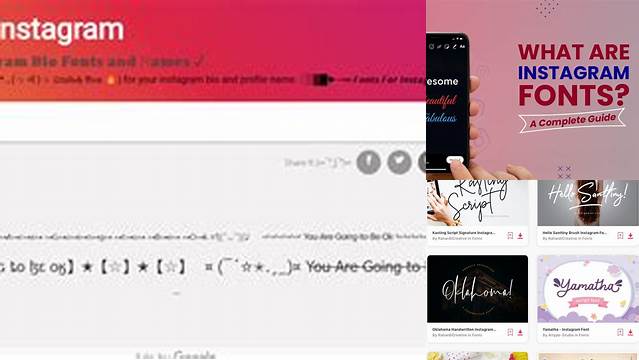
Instagram Fonts Keyboard: Cool Fonts For Your Bio & Captions
Hey guys! Ever wondered how some Instagram profiles have those super cool, unique fonts in their bios and captions? You're not alone! It's a common question, and the answer is simpler than you might think. In this guide, we'll dive deep into the world of Instagram fonts keyboard options, helping you jazz up your profile and stand out from the crowd. We'll explore everything from why using different fonts matters to how you can easily implement them using various tools and apps. Get ready to transform your Instagram game!
Why Use Different Fonts on Instagram?
In the bustling digital landscape of Instagram, capturing attention is paramount. With millions of users scrolling through their feeds daily, your content needs that extra oomph to stand out. Using different fonts for Instagram is one effective way to achieve this. Think of it as adding a personal touch to your digital voice. A unique font can reflect your brand's personality, whether it's playful, sophisticated, or edgy. It allows you to inject creativity into your posts and stories, making them more visually appealing and engaging.
Moreover, strategic use of stylish fonts can enhance readability. Imagine a long caption in a standard font – it might seem monotonous and discourage users from reading it. However, by breaking it up with different fonts, you can highlight key points, emphasize calls to action, and guide your audience's eye through the text. This is especially crucial for longer captions or stories where you want to maintain viewer interest.
Different fonts also help in establishing a consistent brand identity. If you consistently use a particular font that aligns with your brand's aesthetic, it becomes a recognizable element of your content. This consistency builds brand recognition and makes your posts easily identifiable in the crowded feed. For instance, a luxury brand might opt for a sleek, elegant font, while a fun, quirky brand could choose something more playful and whimsical. The key is to select fonts that resonate with your brand's message and target audience.
Using a diverse font keyboard for Instagram also allows for creative expression. It’s like having a palette of visual tools to play with. You can use different fonts to convey different moods and tones. A bold font might be perfect for announcing a sale or promotion, while a delicate script font could be ideal for sharing a heartfelt message or quote. The possibilities are endless, and experimenting with various fonts can help you discover what works best for your content.
Beyond aesthetics, unique fonts can also improve accessibility. Some fonts are designed to be more legible, especially for users with visual impairments. By choosing fonts that are clear and easy to read, you're making your content accessible to a wider audience. This inclusive approach not only enhances user experience but also demonstrates your commitment to catering to diverse needs.
In essence, varying your fonts on Instagram is a multifaceted strategy. It's not just about looking cool; it's about enhancing engagement, building brand identity, improving readability, and expressing creativity. So, let’s delve into how you can start using these fancy Instagram fonts to elevate your social media presence!
Top Instagram Fonts Keyboard Apps and Websites
Alright, now that we know why using different fonts is a game-changer, let's talk about how to actually do it! The good news is, there's a whole bunch of awesome apps and websites out there that make it super easy to generate stylish text for your Instagram bios, captions, and stories. We're going to break down some of the top contenders, so you can find the perfect fit for your needs.
1. LingoJam
LingoJam is a super user-friendly website that’s perfect for quickly generating cool fonts for Instagram. It's incredibly straightforward: you type your text into the input box, and LingoJam instantly generates a variety of font options below. You can then copy and paste your chosen font directly into your Instagram bio or caption. One of the best things about LingoJam is its simplicity – there are no complicated settings or menus to navigate, making it ideal for users who want a fast and hassle-free solution. Plus, it’s a website, so you can use it on any device without needing to download an app.
The real magic of LingoJam lies in its ability to offer a diverse range of Instagram fonts. From elegant script fonts to bold, attention-grabbing styles, you’ll find a plethora of options to suit any mood or aesthetic. This variety makes it an excellent tool for crafting content that truly stands out. Whether you're looking to add a touch of sophistication to your profile or inject some fun into your posts, LingoJam has got you covered.
Moreover, LingoJam's ease of use makes it a fantastic option for those who are new to the world of custom fonts. You don't need any technical expertise to start creating visually appealing text. Simply type, copy, and paste – it’s that easy! This accessibility makes it a valuable resource for everyone, from social media novices to seasoned pros. In a world where time is of the essence, LingoJam provides a quick and efficient way to elevate your Instagram presence.
LingoJam's versatility extends beyond just Instagram. You can use the generated fonts for other social media platforms, messaging apps, and even design projects. This flexibility makes it a valuable tool for anyone looking to add a creative flair to their digital communications. Whether you're crafting a tweet, designing a poster, or personalizing a message, LingoJam's font options can help you make a lasting impression. Its broad compatibility ensures that you can maintain a consistent visual style across all your online activities.
In addition to its functional benefits, LingoJam also fosters creativity. By presenting a wide array of font styles, it encourages users to experiment and think outside the box. You might discover a font that perfectly captures the essence of your brand or helps you express a particular emotion. This creative exploration is key to developing a unique and engaging online presence. LingoJam is more than just a font generator; it’s a tool for self-expression and brand building.
2. Cool Fonts App
The Cool Fonts App is another fantastic tool in the realm of fonts for Instagram, offering a mobile-friendly solution for creating stylish text. Available for both iOS and Android, this app puts a diverse range of fonts right at your fingertips. It’s designed for convenience, allowing you to generate and copy fonts directly from your smartphone or tablet. This is particularly useful for creating content on the go, whether you're crafting a caption, updating your bio, or designing an Instagram Story.
One of the standout features of the Cool Fonts App is its extensive library of font options. You’ll find everything from classic serif and sans-serif fonts to more decorative and whimsical styles. This variety ensures that you can always find the perfect font to match your content and brand aesthetic. The app regularly updates its font collection, so you’ll always have access to the latest and greatest styles. This continuous expansion keeps your options fresh and ensures that your content remains visually appealing.
Beyond just font generation, the Cool Fonts App offers a range of customization options. You can adjust the size, color, and spacing of your text to create a truly unique look. This level of control allows you to fine-tune your typography and ensure that it perfectly complements your visual content. Whether you're aiming for a subtle enhancement or a bold statement, the app’s customization features give you the tools to achieve your desired effect. This versatility makes it an invaluable asset for anyone looking to make their Instagram posts stand out.
The Cool Fonts App also integrates seamlessly with Instagram and other social media platforms. You can easily copy and paste your generated text into your captions, bios, and stories. This smooth integration streamlines your workflow and saves you time. The app’s user-friendly interface further enhances its appeal, making it easy for anyone to start creating stylish text right away. Whether you're a seasoned social media pro or a beginner, you’ll find the Cool Fonts App to be an intuitive and efficient tool.
In addition to its core font generation capabilities, the Cool Fonts App often includes extra features such as symbol libraries and text art options. These added bonuses provide even more ways to enhance your content and express your creativity. The symbol libraries offer a range of decorative characters and icons that you can use to add visual flair to your text. The text art options allow you to create eye-catching designs and layouts that grab attention. These additional features make the Cool Fonts App a comprehensive tool for elevating your Instagram presence.
3. Fonts for Instagram - Apps on Google Play
For Android users specifically, the "Fonts for Instagram" app on Google Play is a must-try for generating stylish Instagram fonts. This app is designed with the mobile user in mind, providing a convenient way to create eye-catching text directly from your Android device. Its focused functionality and user-friendly interface make it a popular choice for those looking to enhance their Instagram profiles and posts. The app's straightforward design ensures that you can quickly generate the fonts you need without any hassle.
One of the key advantages of this app is its specialized focus on Instagram. While many font generators offer a broad range of options, "Fonts for Instagram" is tailored to the platform’s specific needs and constraints. This targeted approach means that the fonts generated are optimized for readability and visual appeal within the Instagram environment. The app understands the platform's nuances and delivers fonts that look great in captions, bios, and stories. This specialized design is a significant advantage for users who want to ensure their text stands out on Instagram.
The "Fonts for Instagram" app boasts a diverse selection of fonts, ranging from classic styles to more creative and decorative options. You'll find fonts suitable for various moods and aesthetics, allowing you to express your brand's personality or add a personal touch to your content. The app’s font library is regularly updated, ensuring that you always have access to fresh and trendy styles. This constant evolution keeps your content looking current and engaging. Whether you're crafting a serious announcement or a playful message, you'll find the perfect font to convey your tone.
In addition to its extensive font library, the "Fonts for Instagram" app often includes features that streamline the text creation process. Many versions offer a direct copy-and-paste function, allowing you to seamlessly transfer your generated text into your Instagram captions or bio. This integration saves time and effort, making it easy to incorporate custom fonts into your content workflow. The app’s efficient design is a testament to its focus on user convenience, making it a valuable tool for busy social media users.
Furthermore, the app is designed to be lightweight and efficient, ensuring that it doesn’t take up too much space on your device or drain your battery. This optimized performance is crucial for users who rely on their mobile devices for content creation. The app’s streamlined design focuses on delivering the core functionality of font generation without unnecessary bells and whistles. This simplicity enhances the user experience and makes the app a reliable tool for everyday use.
How to Use an Instagram Fonts Keyboard
Okay, so you've picked your app or website, and you're ready to unleash some font magic on your Instagram profile. But how exactly do you use these Instagram font keyboards? Don't worry, it's a piece of cake! The process is generally the same across most platforms, but let's break it down step-by-step to make sure you've got it.
Choose Your Tool: First things first, decide which font generator you want to use. Whether it's LingoJam, the Cool Fonts App, or another option, make sure you have it open and ready to go. If you're using a website like LingoJam, simply navigate to the site in your web browser. If you're using an app, make sure it's downloaded and installed on your device. Having your chosen tool ready will streamline the process and make it easy to generate fonts on the fly.
Type Your Text: Now, think about what you want to say! Whether it's a catchy bio, an engaging caption, or a creative story update, type your text into the input box provided by the font generator. This is where you'll craft the message that you want to transform with a stylish font. Take your time to ensure that your text is exactly as you want it, as this is the foundation for your visual message. Clear, concise, and compelling text will only be enhanced by a unique font.
Select Your Font: This is the fun part! Most font generators will automatically display a variety of font options as you type. Scroll through the list and find the font that perfectly matches your style and the message you're conveying. Consider the tone and mood you want to express – a playful message might suit a whimsical font, while a professional announcement might call for something more sleek and sophisticated. Experiment with different fonts to see what resonates best with your content and audience. Selecting the right font is crucial for making your message stand out and capturing attention.
Copy the Text: Once you've found the perfect font, simply copy the generated text. Most font generators have a convenient copy button or option that allows you to easily grab the stylized text. Some apps may also offer a direct sharing option, but copying the text is generally the most versatile approach. Ensure that you've copied the entire text, including any special characters or symbols, to preserve the intended look and feel. This step ensures that you can seamlessly transfer your stylized text to Instagram or any other platform you choose.
Paste into Instagram: Now, head over to Instagram and paste your fancy text into your bio, caption, or story. Whether you're updating your profile to reflect your personal brand or crafting an engaging post, this is where your font magic comes to life. Simply navigate to the text field where you want to insert the stylized text and paste it in. You can then make any final adjustments or edits as needed. Seeing your message transformed with a unique font can be incredibly satisfying, adding a touch of personality and visual flair to your Instagram presence.
Preview and Post: Before you hit that post button, take a moment to preview your text and make sure everything looks just right. Check the font size, spacing, and overall appearance to ensure that it's visually appealing and easy to read. Pay attention to how the font interacts with other elements in your post, such as images or videos. A quick preview can help you catch any potential issues and ensure that your final product is polished and professional. Once you're happy with the result, go ahead and post your stylish creation for the world to see!
Tips for Using Fonts Effectively
Alright, you've got the tools and the know-how, but let's talk about using these fancy Instagram fonts like a pro. It's not just about slapping on a cool font; it's about using them strategically to enhance your content and brand. Here are some tips to keep in mind:
Maintain Readability: First and foremost, make sure your font is easy to read. A super fancy font might look cool, but if your followers can't decipher your message, what's the point? Choose fonts that are clear and legible, especially for longer captions or important information. Consider the size and spacing of the font as well – smaller fonts or tightly spaced text can be difficult to read on a mobile screen. Prioritizing readability ensures that your message is effectively communicated and that your audience stays engaged.
Match Your Brand: Your font should reflect your brand's personality. If you're a fun, quirky brand, go for something playful. If you're a sophisticated brand, opt for something elegant. Consistency is key – using the same font or a cohesive set of fonts across your profile and posts helps build brand recognition. Think of your font as part of your visual identity, working in harmony with your logo, colors, and imagery to create a cohesive and memorable brand experience. A well-chosen font can reinforce your brand’s message and make your content instantly recognizable.
Use Sparingly: Don't go overboard with too many different fonts. A mix of two or three fonts is usually plenty. Too many fonts can make your content look cluttered and confusing. Think of fonts as accents – they're there to enhance your message, not overwhelm it. Use different fonts strategically to highlight key points or add visual interest, but avoid using a different font for every single word or phrase. A minimalist approach often yields the most impactful results, allowing your message to shine through without distraction.
Highlight Key Information: Use different fonts to emphasize important parts of your caption or bio. Bold fonts, italics, or a slightly larger font size can draw attention to key words, phrases, or calls to action. This technique is particularly effective for highlighting discounts, promotions, or deadlines. By strategically using fonts to guide your audience’s eye, you can ensure that they don’t miss crucial information. Visual hierarchy is essential for effective communication, and fonts are a powerful tool for creating that hierarchy.
Test and Iterate: What works for one brand might not work for another. Experiment with different fonts and see what resonates with your audience. Pay attention to your engagement metrics – are certain fonts generating more likes, comments, or shares? Don't be afraid to adjust your font strategy based on your findings. Social media is an ever-evolving landscape, and continuous testing and iteration are crucial for success. By analyzing your performance and adapting your approach, you can optimize your font usage to maximize its impact.
By keeping these tips in mind, you can use Instagram fonts to create a visually appealing and engaging profile that truly represents your brand. Remember, fonts are a powerful tool, but like any tool, they're most effective when used thoughtfully and strategically.
So there you have it, guys! The world of Instagram fonts keyboard options is vast and exciting. By understanding why different fonts matter and how to use them effectively, you can take your Instagram game to the next level. Whether you're jazzing up your bio, crafting captivating captions, or creating eye-catching stories, the right font can make all the difference. So go ahead, experiment, get creative, and make your Instagram profile shine! Remember, it’s all about finding what works best for you and your brand. Have fun with it, and happy posting!